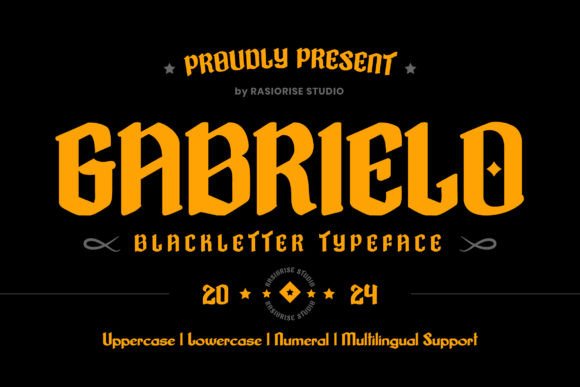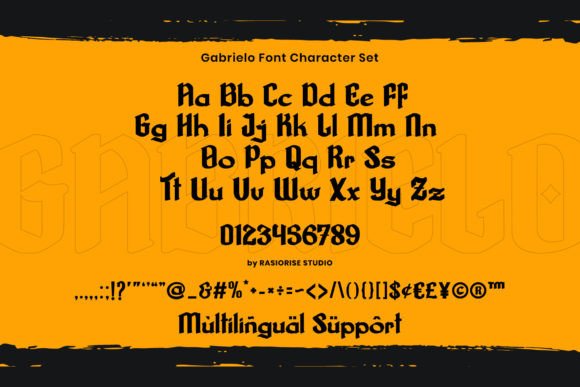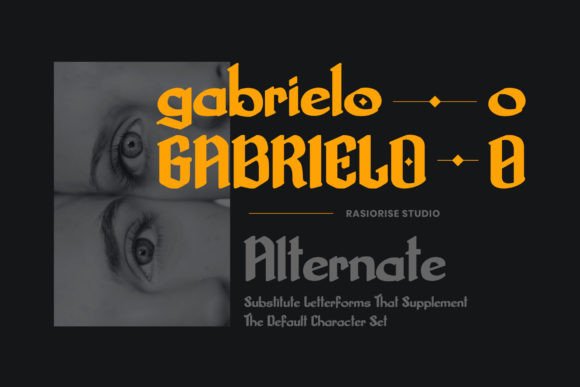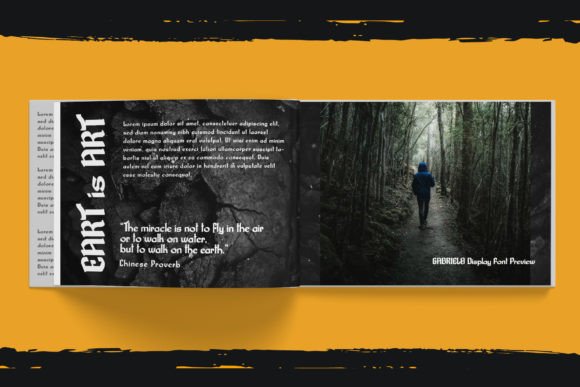
Gabrielo Font: Bold Blackletter for Logos & Unique Typography
About the Gabrielo Font
The Gabrielo Font is here to transform your projects with its distinctive character and style. Gabrielo is a sans-serif blackletter typeface. Gabrielo has been released for those of you who are looking for a Sans-Serif Blackletter Typeface, The font is inspired by the Old English Font used in Western Europe Style with a few combined to turn them into a bit of a modern bold style font. It’s very suitable for logos, headlines, newspaper, book covers, certificates, comic beer labels, merchandise, packaging labels, badge/emblem logos, tattoo, and much more.
Gabrielo’s bold, modern personality makes it ideal for headlines, logos, and short impactful statements across branding materials, posters, and packaging. Its strong forms work well for eye-catching displays, but its intricate details might become illegible in smaller sizes or extended body text. Avoid using it for UI elements or long paragraphs.
Consider pairing Gabrielo with a clean sans-serif like Open Sans for readability in supporting text, or a classic serif like Garamond for a sophisticated contrast. For a more playful feel, a rounded sans-serif such as Poppins could work well. A simple geometric sans-serif would also create a strong modern contrast.
Ultimately, Gabrielo is best suited for projects that demand a strong, confident visual presence—brands projecting power, heritage, or a touch of rebellion.